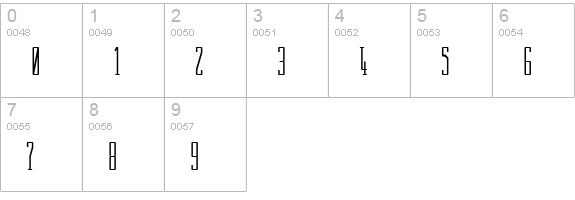
Dalle font is a modern and stylish typeface that exudes elegance and sophistication. Its sleek lines and contemporary aesthetic make it perfect for a wide range of design projects, from branding to editorial work. The versatility of Dalle font allows it to be used in both headline and body text, ensuring a cohesive and polished look across all your designs. Best of all, Dalle font is available for free download at FontsMarket.com. This means you can access this high-quality font without any cost, making it a valuable asset for any designer or creative professional. Don't miss out on the opportunity to enhance your projects with the stunning Dalle font - download it today and elevate your design game!